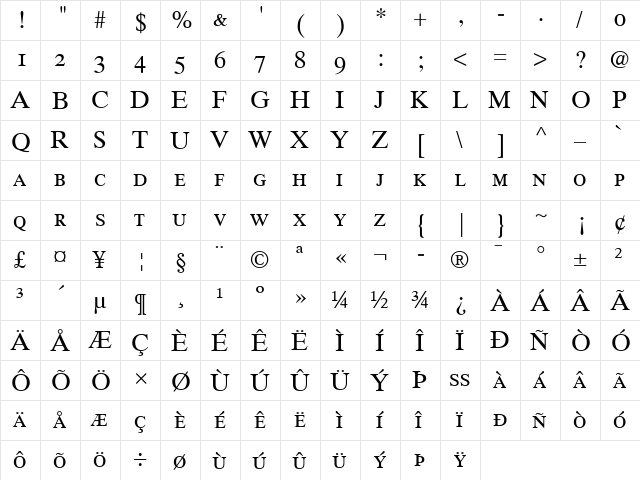
TimesTen RomanSC Regular Font Preview
TimesTen RomanSC Regular
Design Context for TimesTen RomanSC Typeface
TimesTen RomanSC is a composed and adaptable typeface that performs quietly and consistently across a wide range of design contexts.